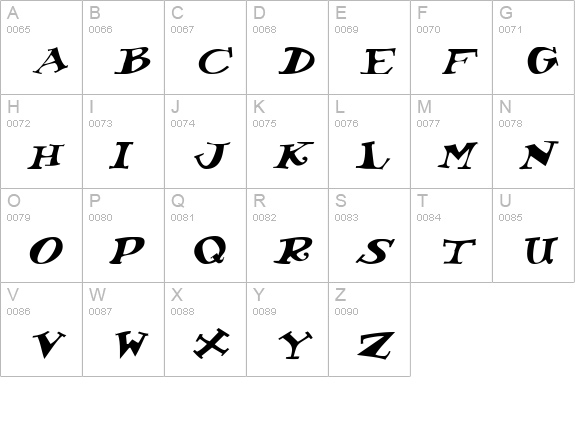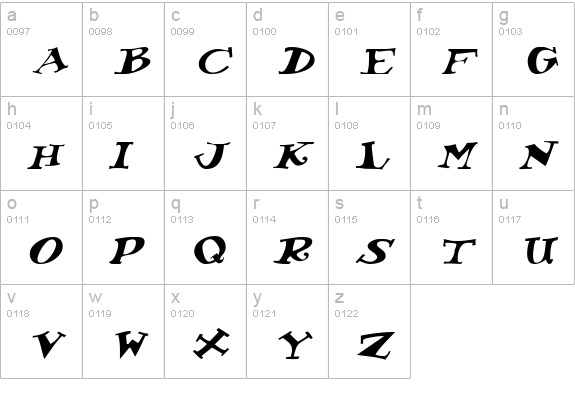
KoolKapsDisplayHvy Italic is a distinctive, italic variant in the KoolKapsDisplayHvy typeface family \xE2\x80\x94 well suited to design and typography projects.
KoolKapsDisplayHvy Italic font is a bold and eye-catching typeface that exudes a sense of modernity and sophistication. Its heavy weight and slanted italic styling make it perfect for creating impactful headlines, titles, and branding materials. With its unique design and stylish appearance, this font is sure to grab attention and make a statement. The best part? KoolKapsDisplayHvy Italic font is available for free download at FontsMarket.com. This means you can easily access and use this striking font in your projects without any cost. Whether you're working on a poster, website, or logo design, KoolKapsDisplayHvy Italic font is a versatile option that will elevate your creations to the next level. Don't miss out on the opportunity to enhance your designs with this striking and dynamic typeface - download it for free today!